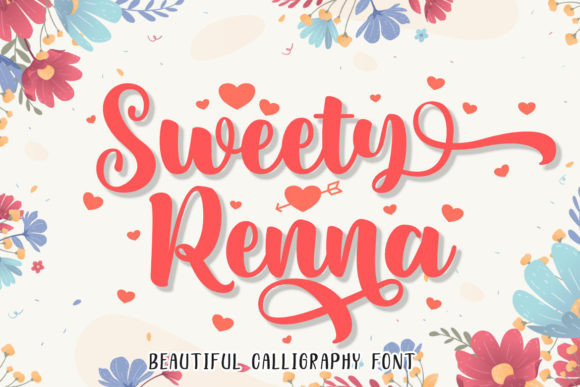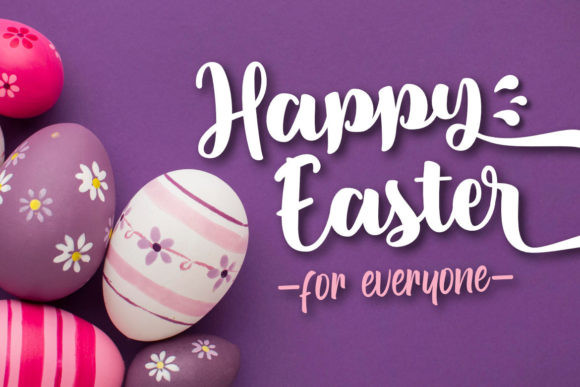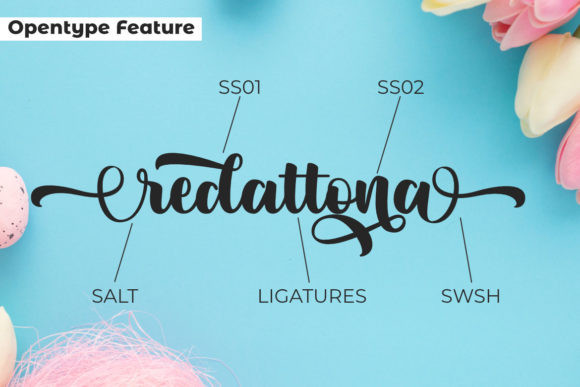
Sweety Renna Font
Sweety Renna FontSweety Renna is an incredibly elegant handwritten font. Masterfully designed to become a true favorite, this font has the potential to bring each of your creative ideas to the highest level!